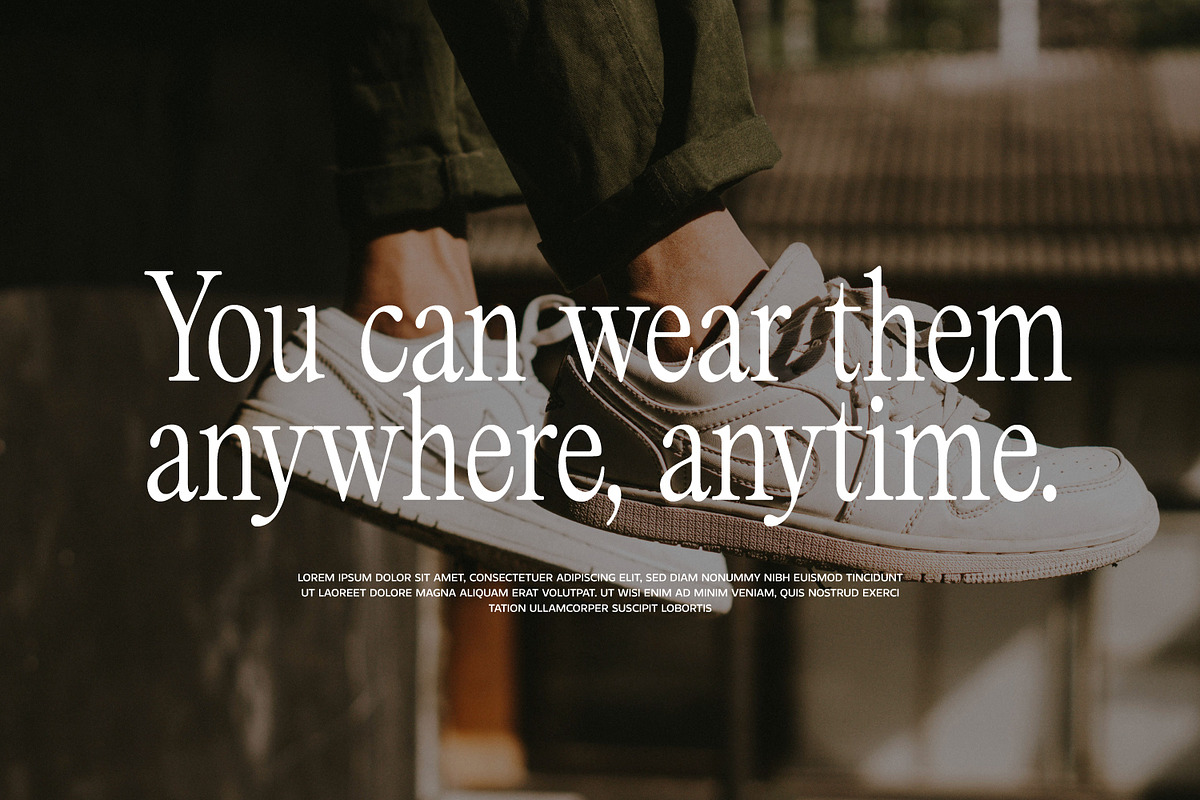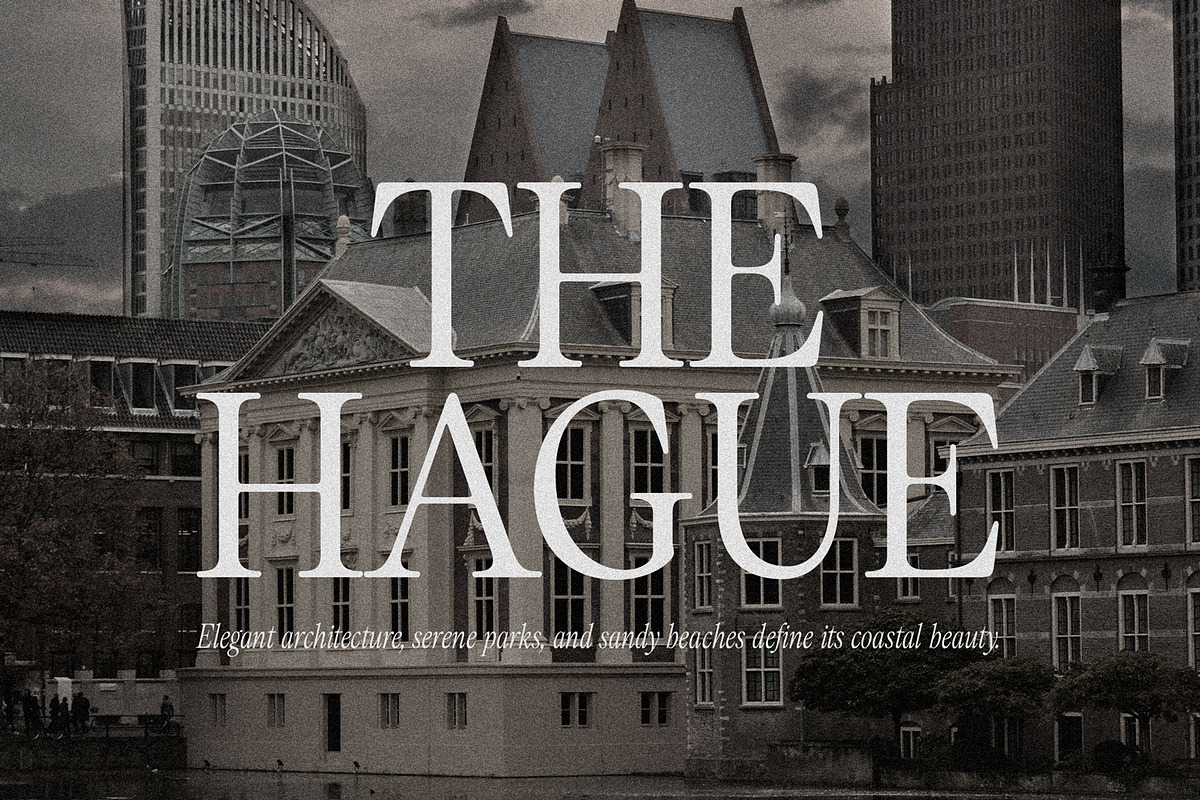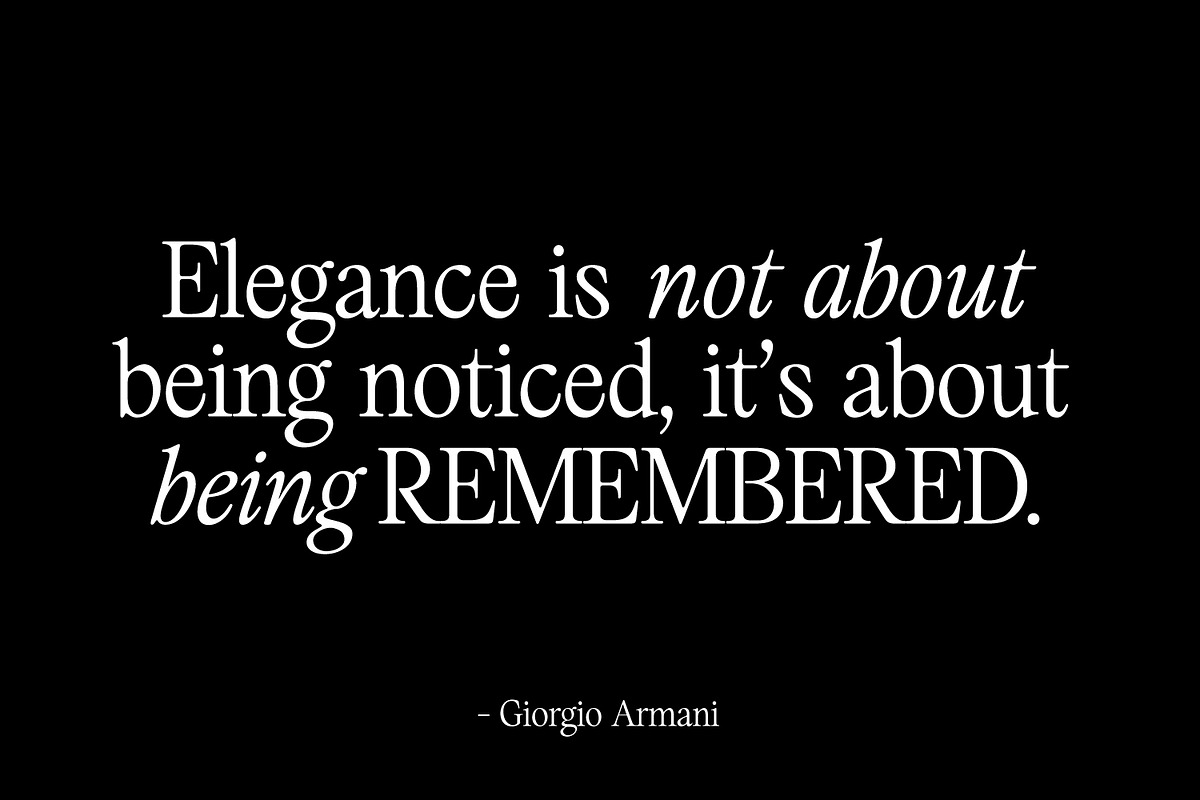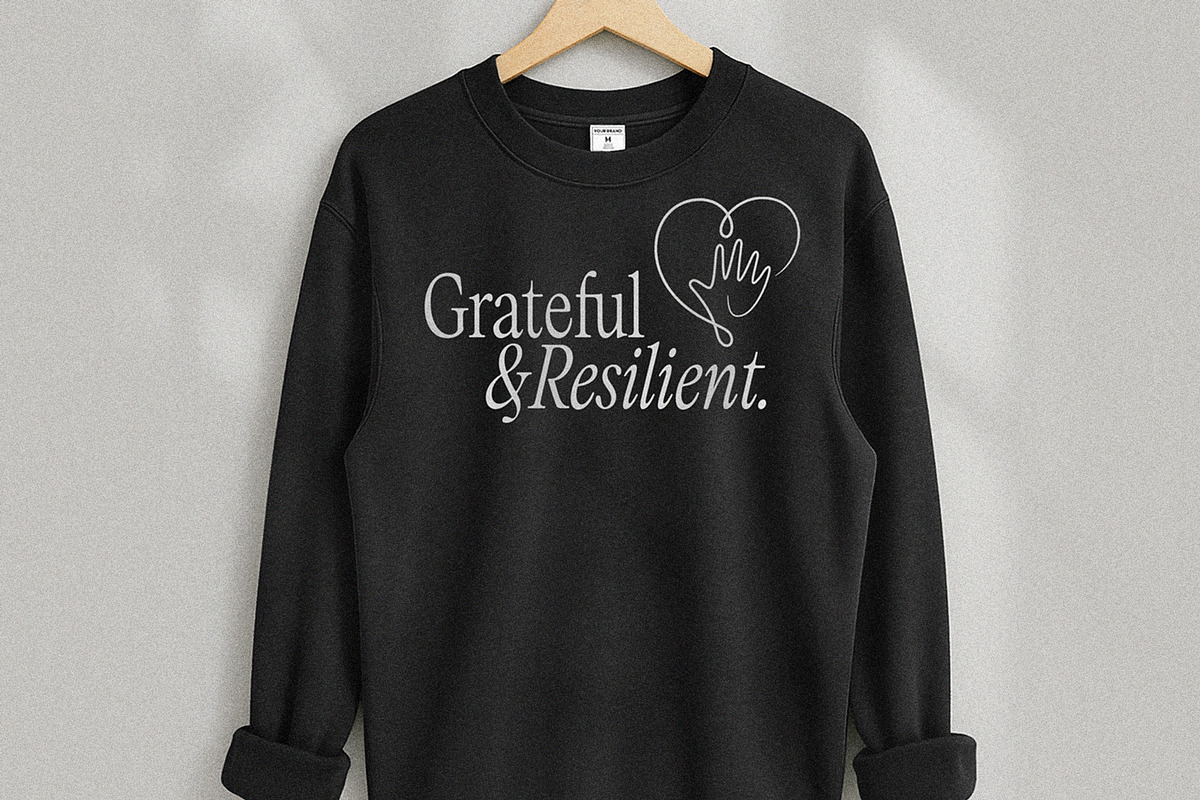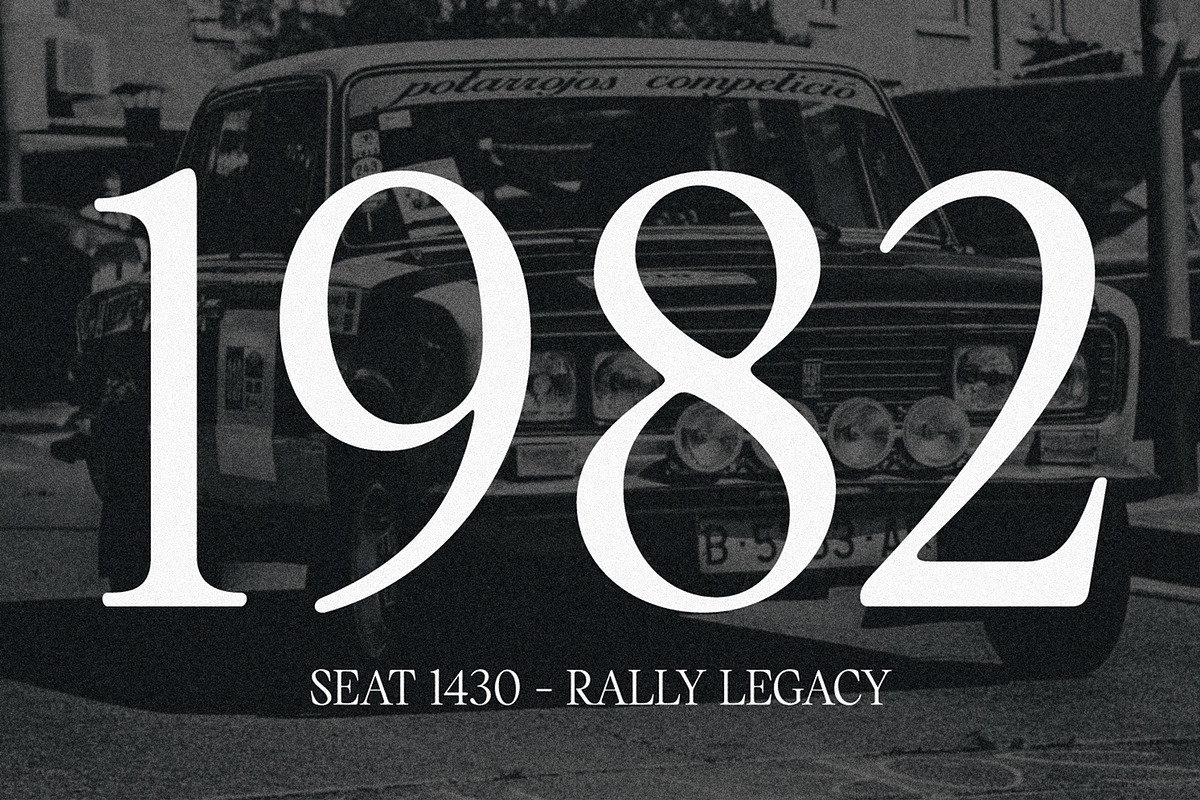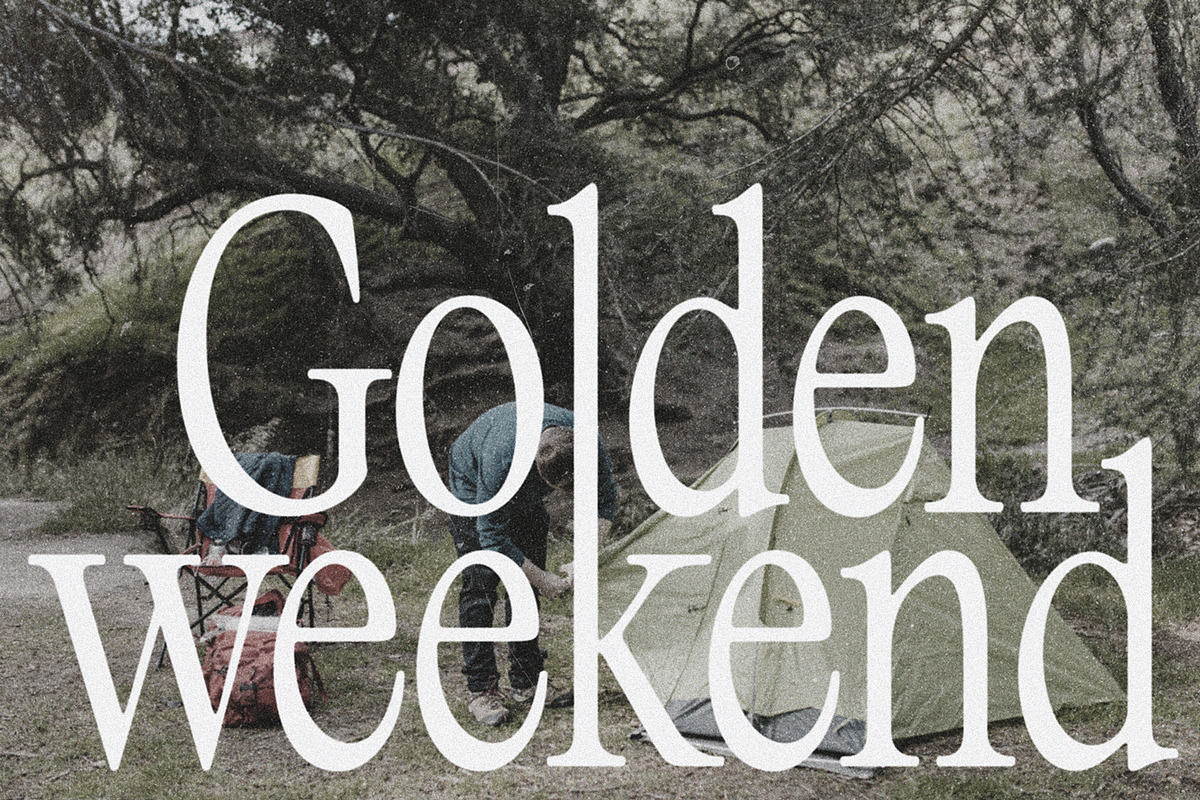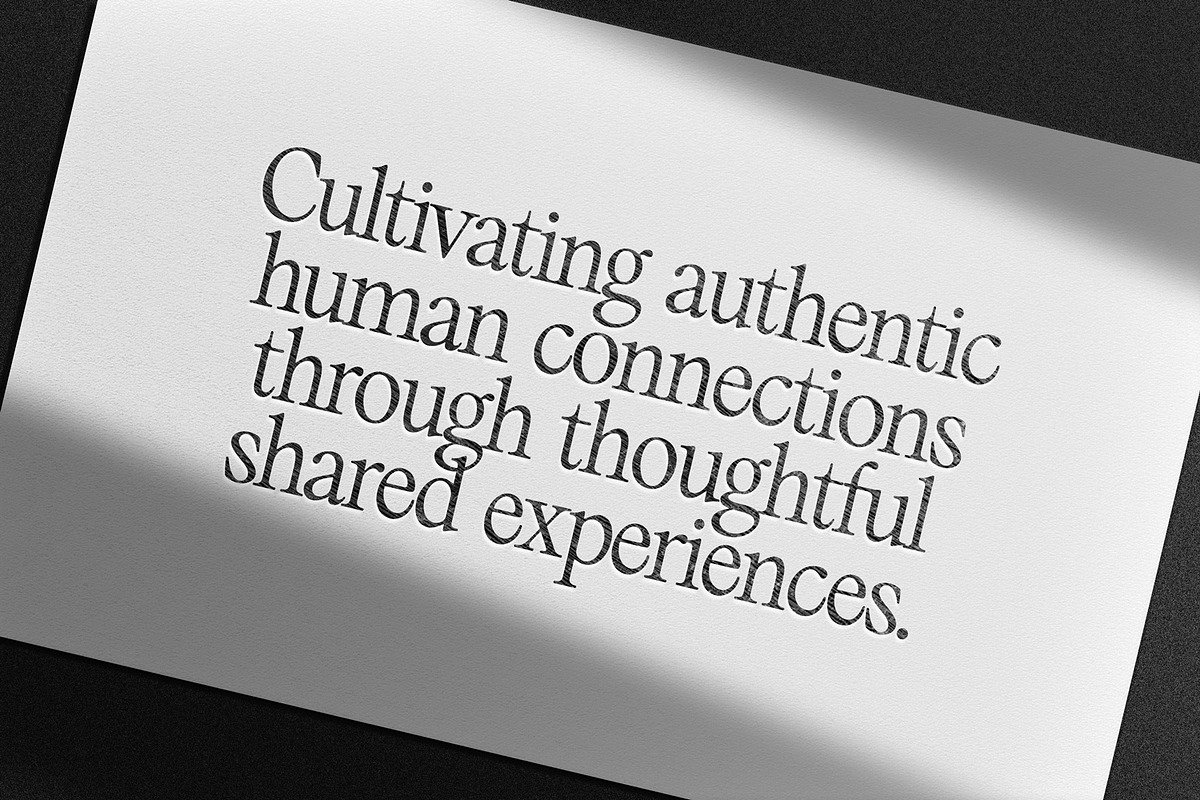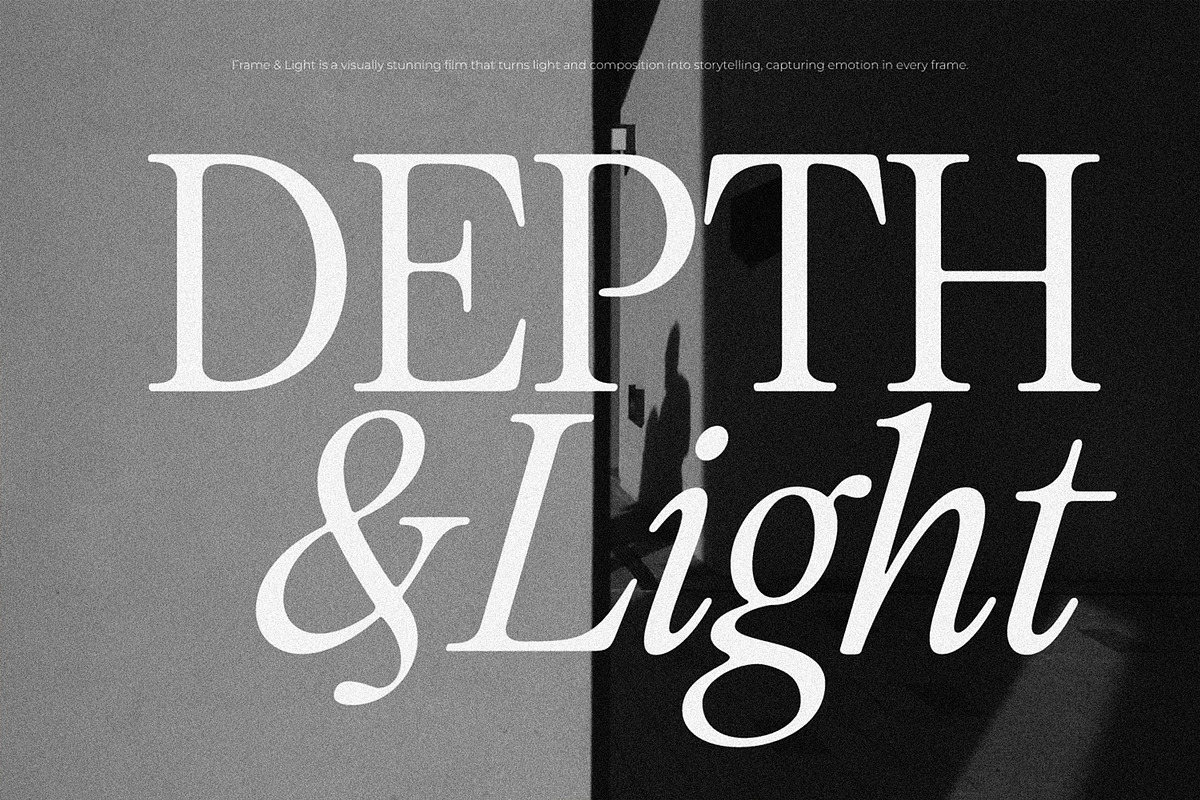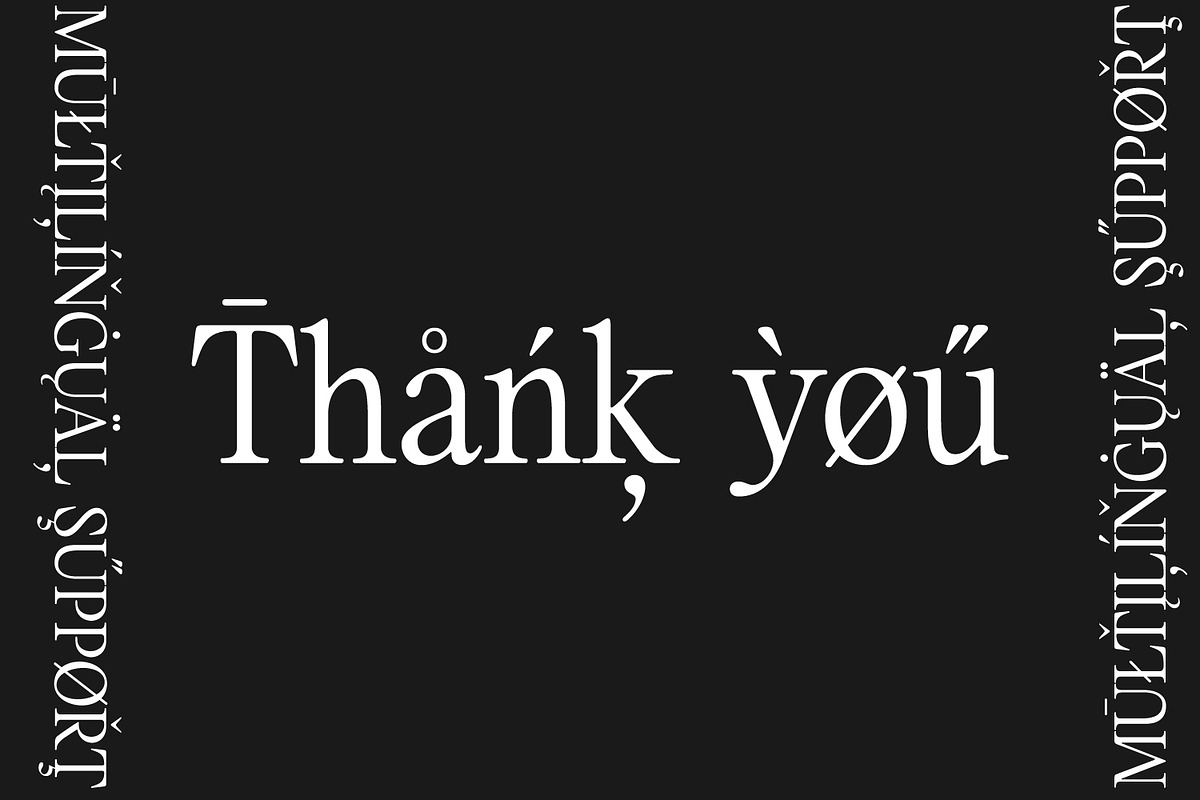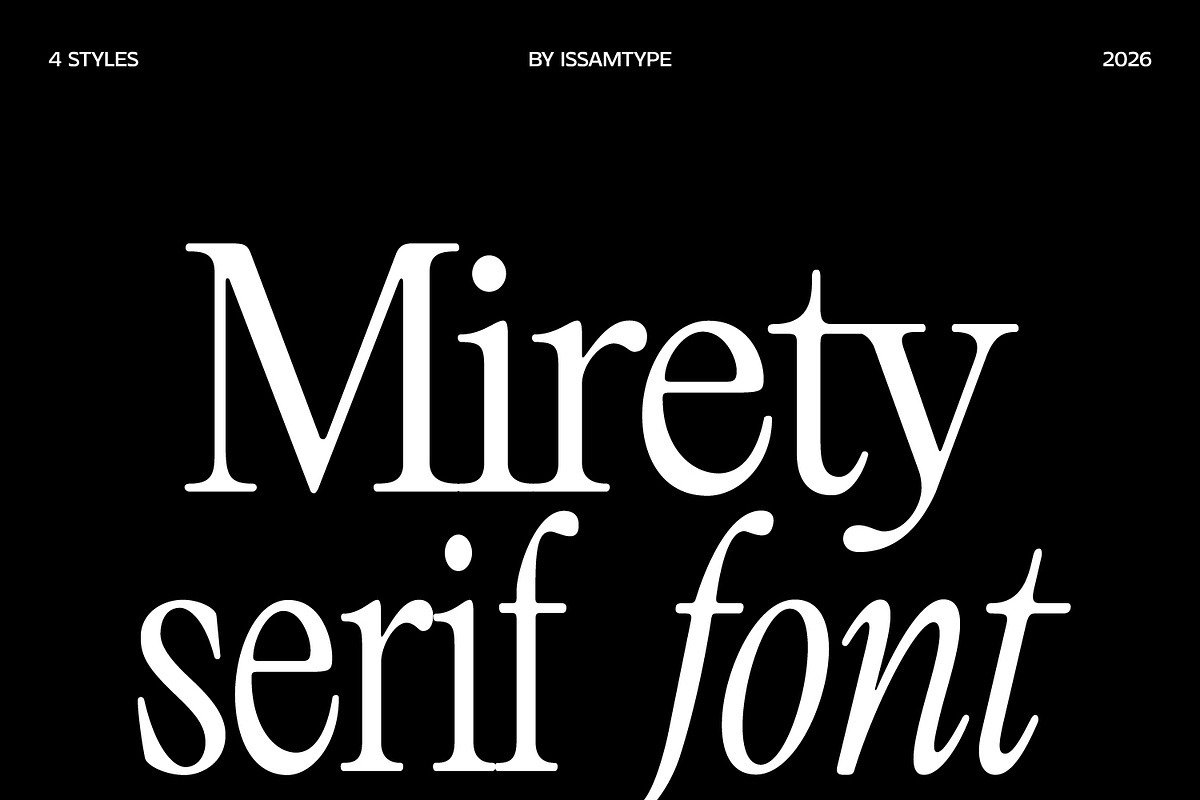
Mirety — A Nostalgic Editorial Serif
Mirety is a nostalgically charged serif family that effortlessly balances vintage romance with contemporary luxury. Inspired by the bold, high-contrast typography of late-20th-century fashion magazines, it brings an instant high-end look to any modern layout.
With four distinct styles — Regular, Italic, Condensed, and Condensed Italic — Mirety gives you complete creative control over your typography.
Uppercase, Lowercase & Multilingual Support
Numbers, Punctuation & Symbols
Stylistic Alternates & Ligatures